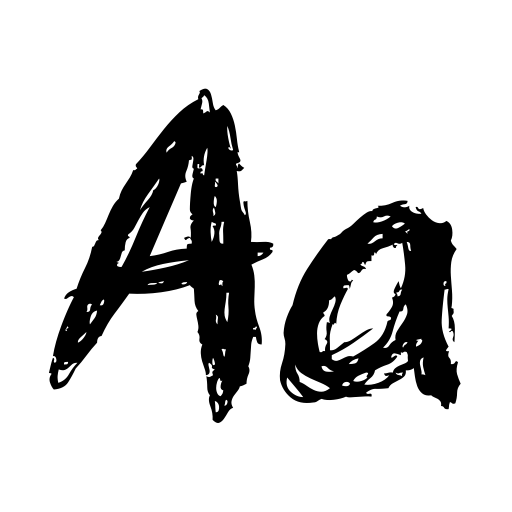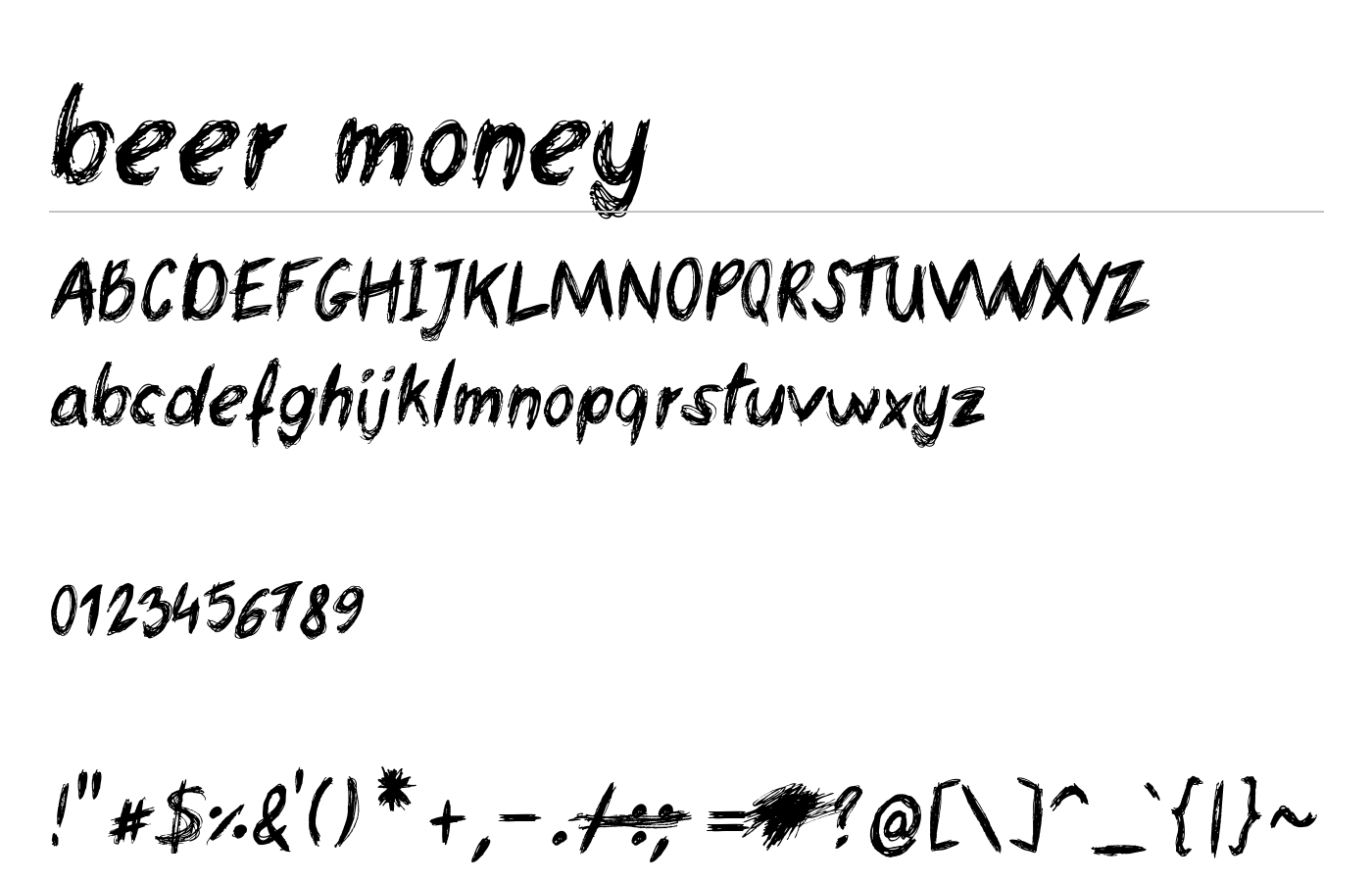
Beer Money is a lively handwritten brush font with a rough, textured style that adds a casual and artistic touch to any design. Its irregular strokes and energetic feel make it perfect for creative projects, branding, or informal headlines where a hand-crafted, playful vibe is desired. This font works well for posters, packaging, and websites that aim for a fun and dynamic personality.
beer money Font
About beer money Font
| Font family | beer money Font |
| Designer | Roland Huse |